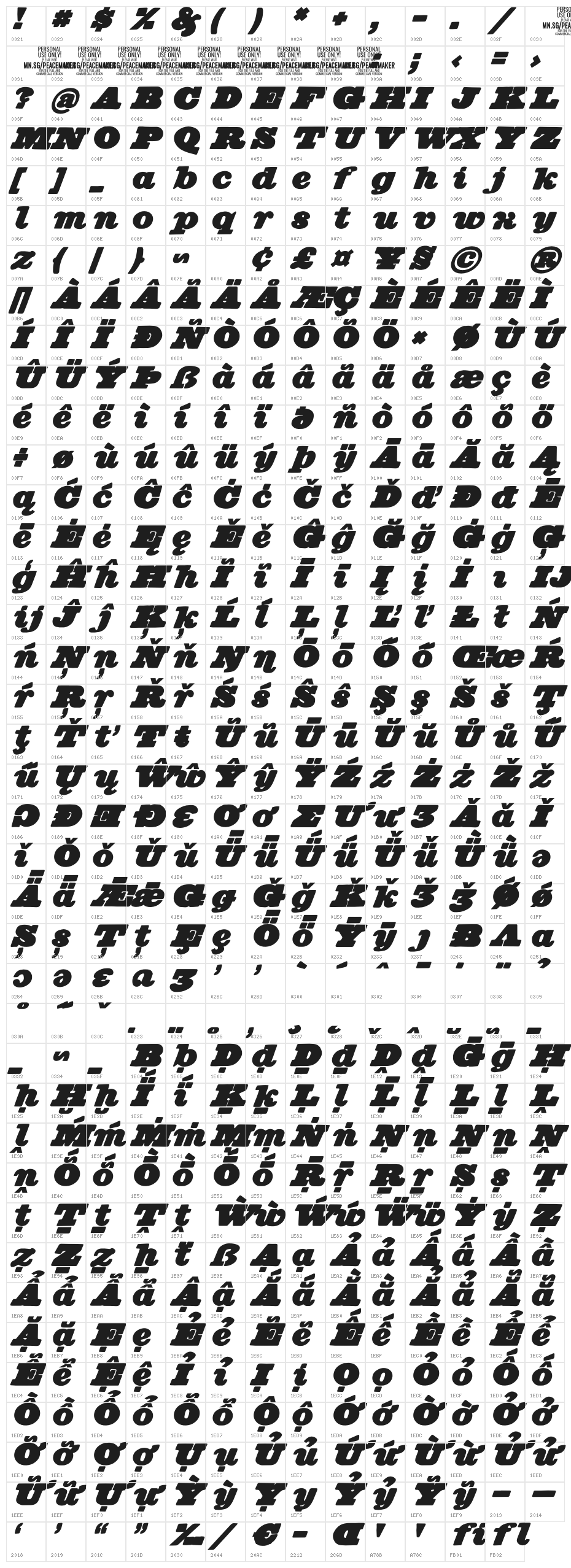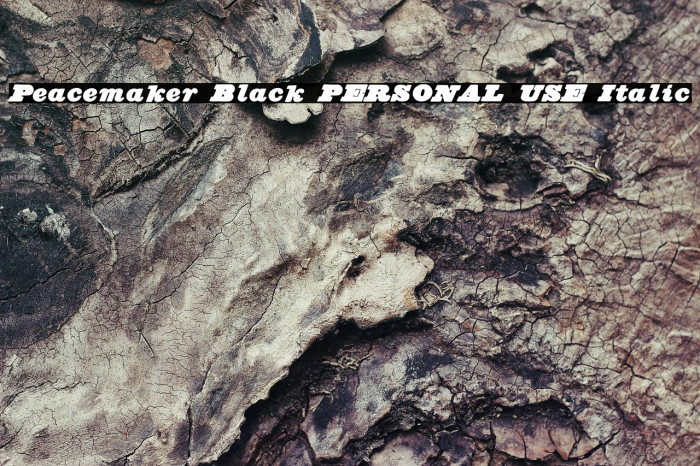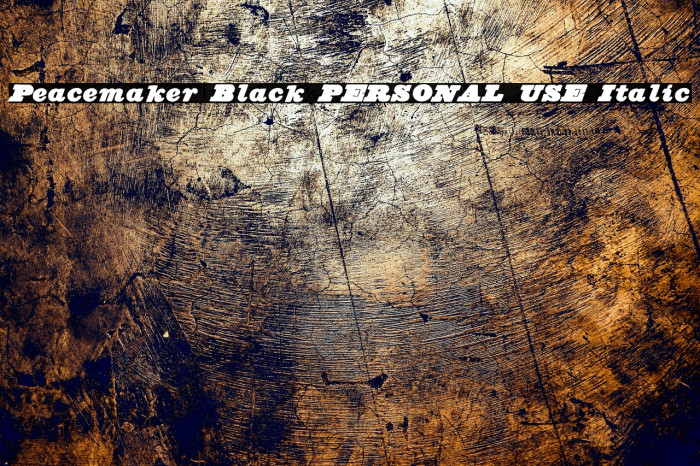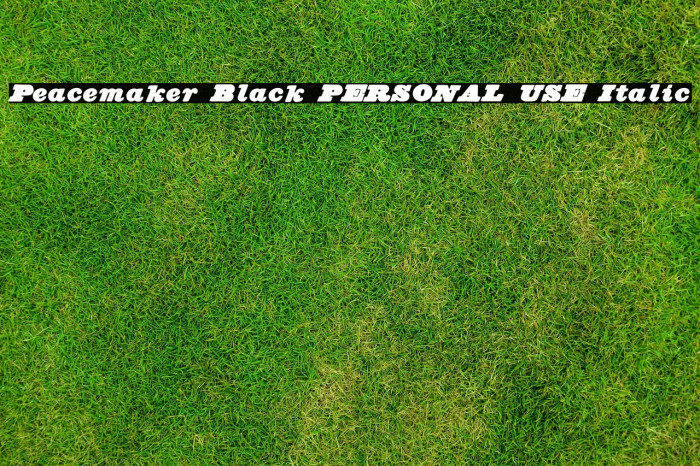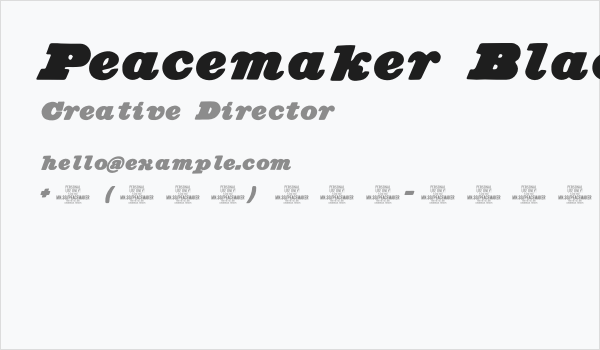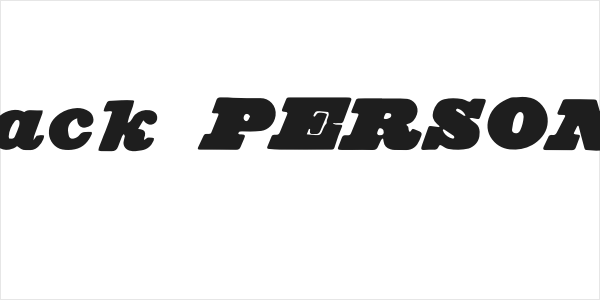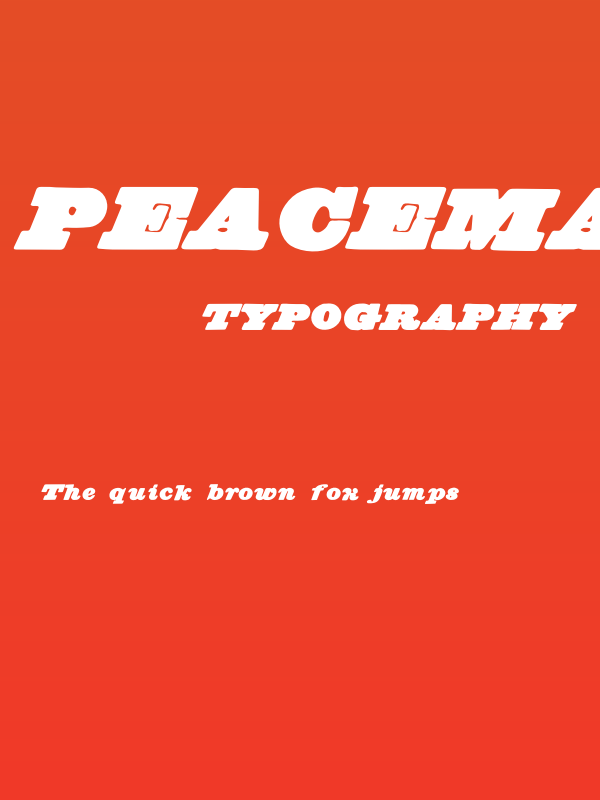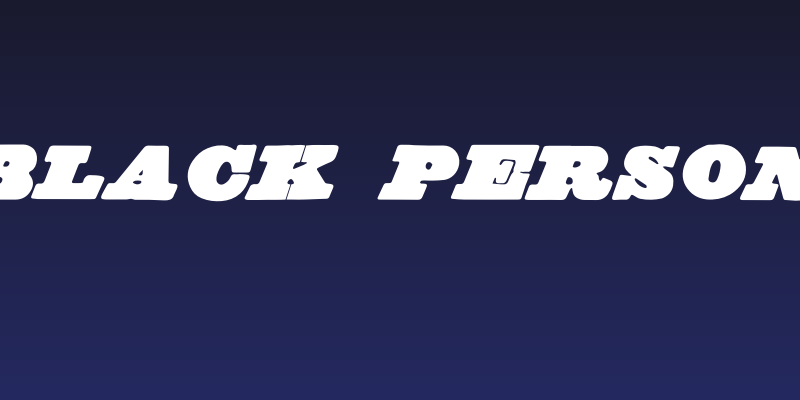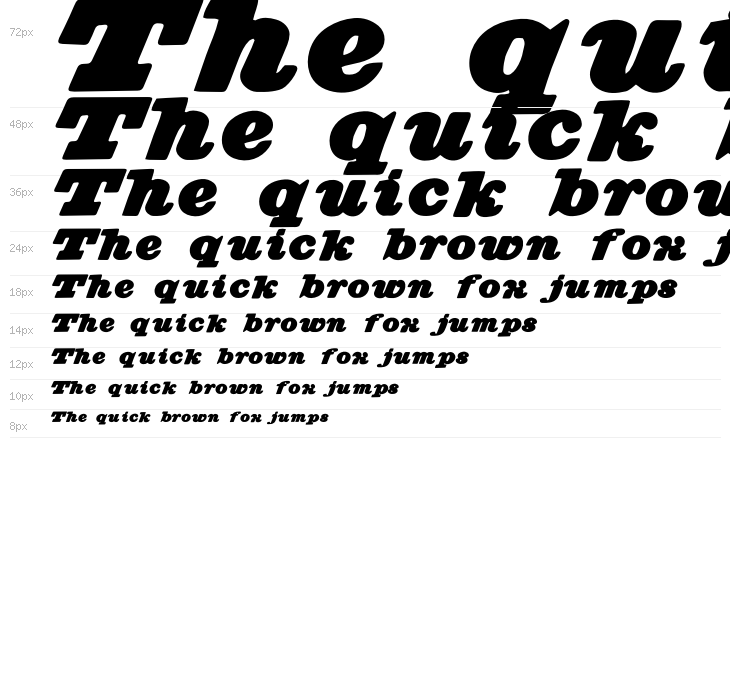
Peacemaker Black PERSONAL USE Italic Font
Peacemaker Black PERSONAL USE Italic Description
This bold and dynamic font features a strong, impactful presence with its thick, italicized characters. The uppercase letters are robust and commanding, while the lowercase letters maintain a consistent style that complements the uppercase. The font's italic slant adds a sense of motion and energy, making it suitable for attention-grabbing designs. The numbers and special characters are crafted to match the boldness of the alphabet, ensuring a cohesive look across all text elements. The overall style is modern and assertive, perfect for projects that require a strong visual impact.
| Proposed Projects | Ideal for headlines, posters, branding, and any design needing a bold statement. |